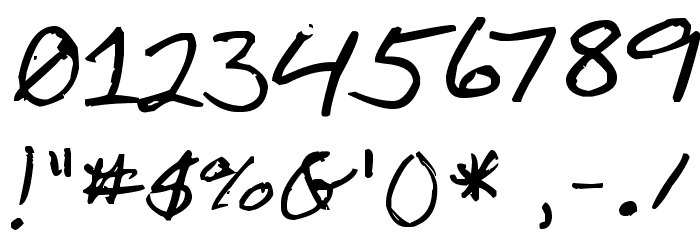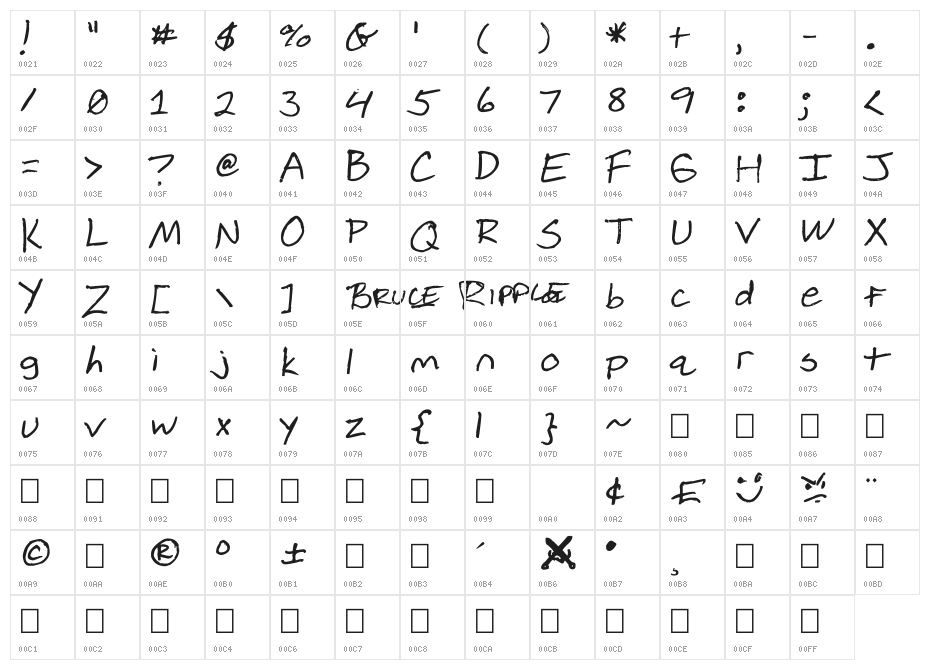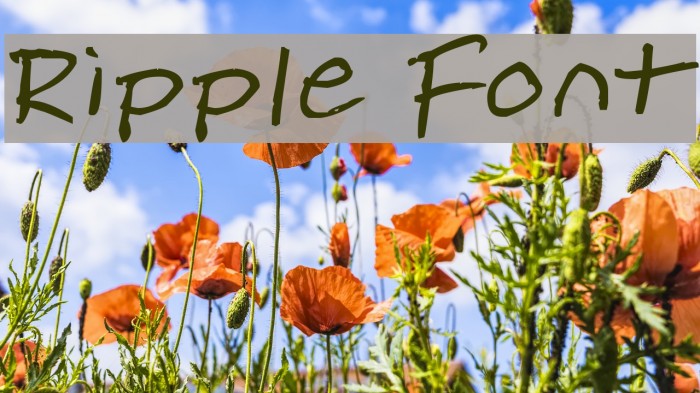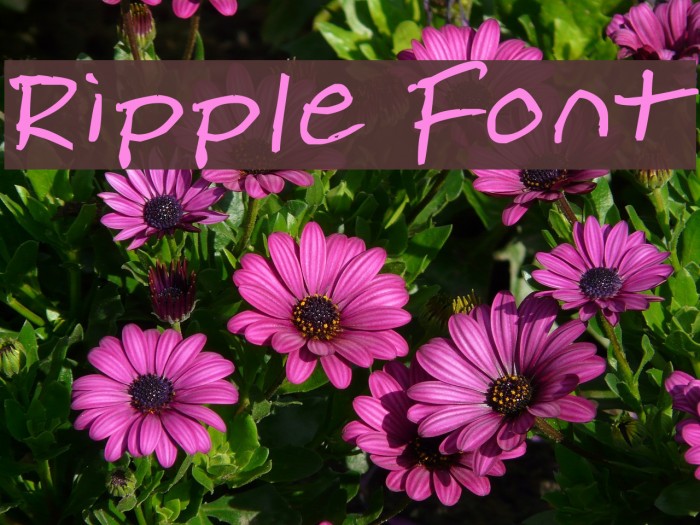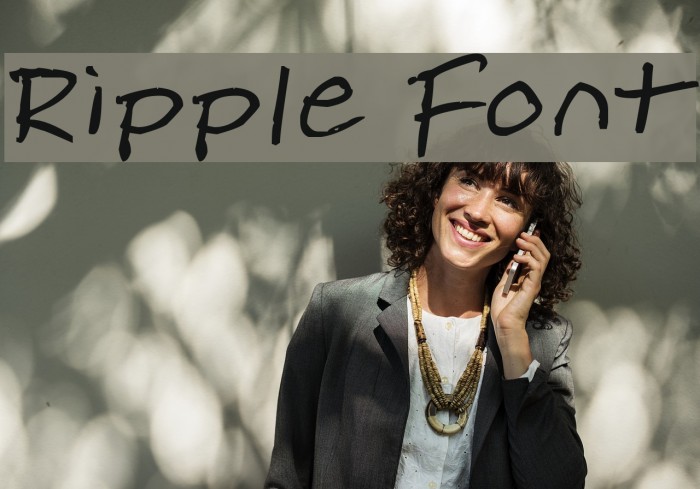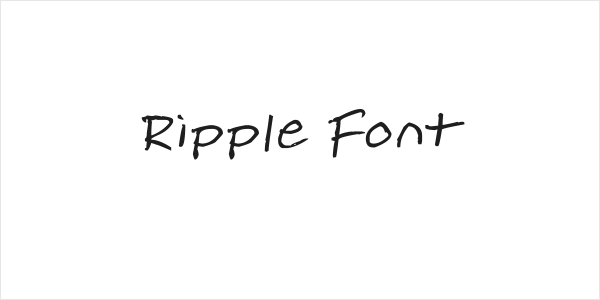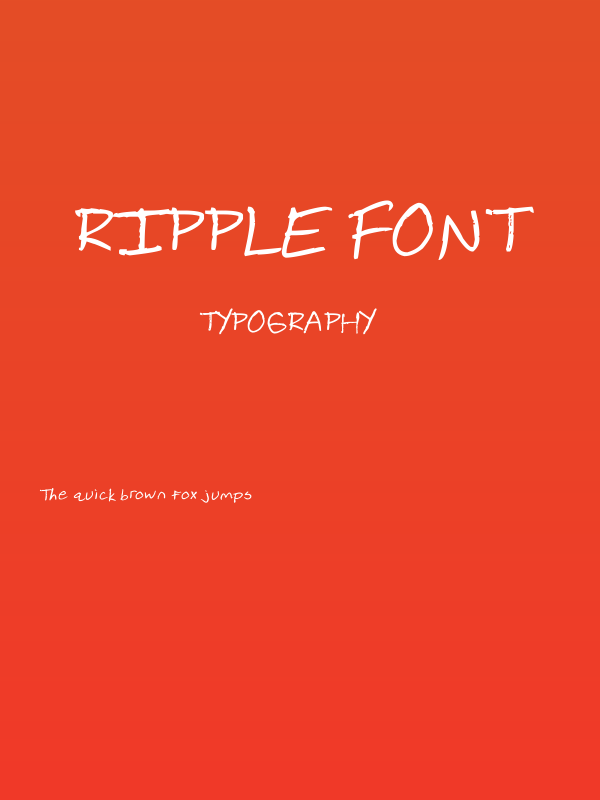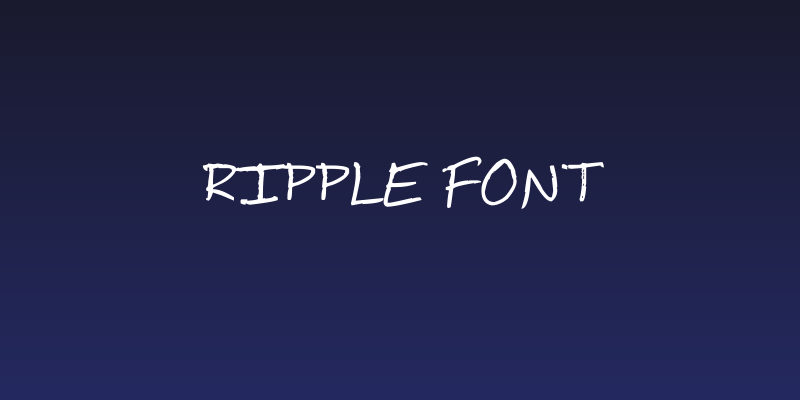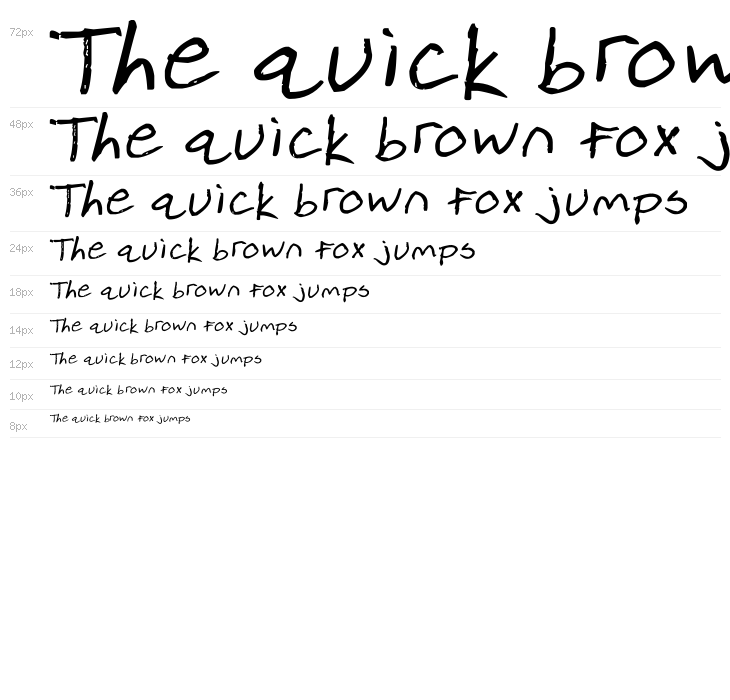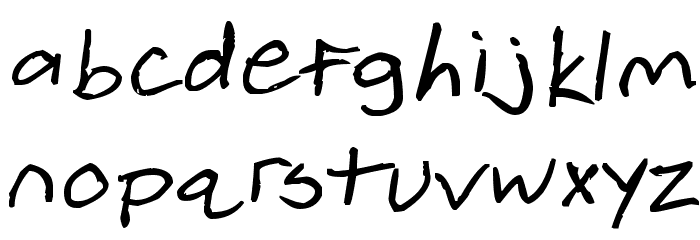
Ripple Font Description
This font exhibits a casual, handwritten style with a playful and informal appearance. The characters are slightly irregular, giving them a natural, organic feel. The strokes are uneven, with a medium contrast between thick and thin lines, adding to the handwritten effect. The letters are well-spaced, maintaining readability while preserving the font's informal charm. The overall style is reminiscent of a personal note or a quick sketch, making it suitable for projects that require a personal touch.
| Overall Style | Casual, Informal |
| Proposed Projects | Ideal for personal notes, greeting cards, informal invitations, and creative projects that require a personal touch. |